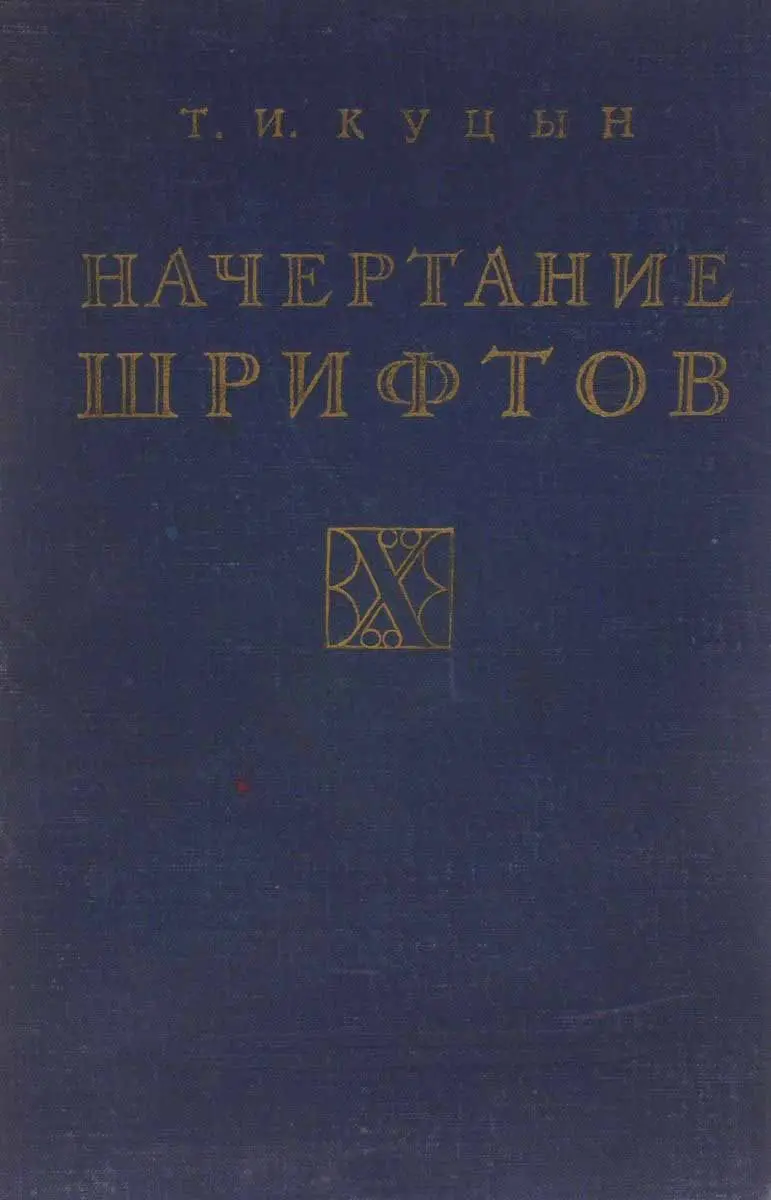
Т. И. Куцын Начертание Шрифтов BX
This digital edition of Т. И. Куцын Начертание Шрифтов BX offers a detailed exploration of typeface design and lettering. Available as an instant PDF download, this book is an essential resource for graphic designers, typographers, and students of visual communication.
Written by T. I. Kutsyn, this work delves into the principles of typeface construction, providing both theoretical insights and practical guidance. The digital format allows for easy access on various devices, making it a convenient reference for professionals and enthusiasts alike.
Book Overview
Т. И. Куцын Начертание Шрифтов BX is a comprehensive guide to the art of typeface design. It covers the historical context, structural elements, and creative processes involved in developing distinctive letterforms. The book is particularly valuable for those interested in Cyrillic typography and its evolution.
What You’ll Discover Inside
- Fundamental principles of typeface construction
- Detailed analysis of letterform anatomy
- Practical exercises for designing custom fonts
- Historical overview of typeface development
- Insights into the work of T. I. Kutsyn
Why This Book Matters
This book is a significant contribution to typographic literature, offering a unique perspective on typeface design from a Russian author. It serves as both an educational tool and a source of inspiration for designers seeking to deepen their understanding of lettering.